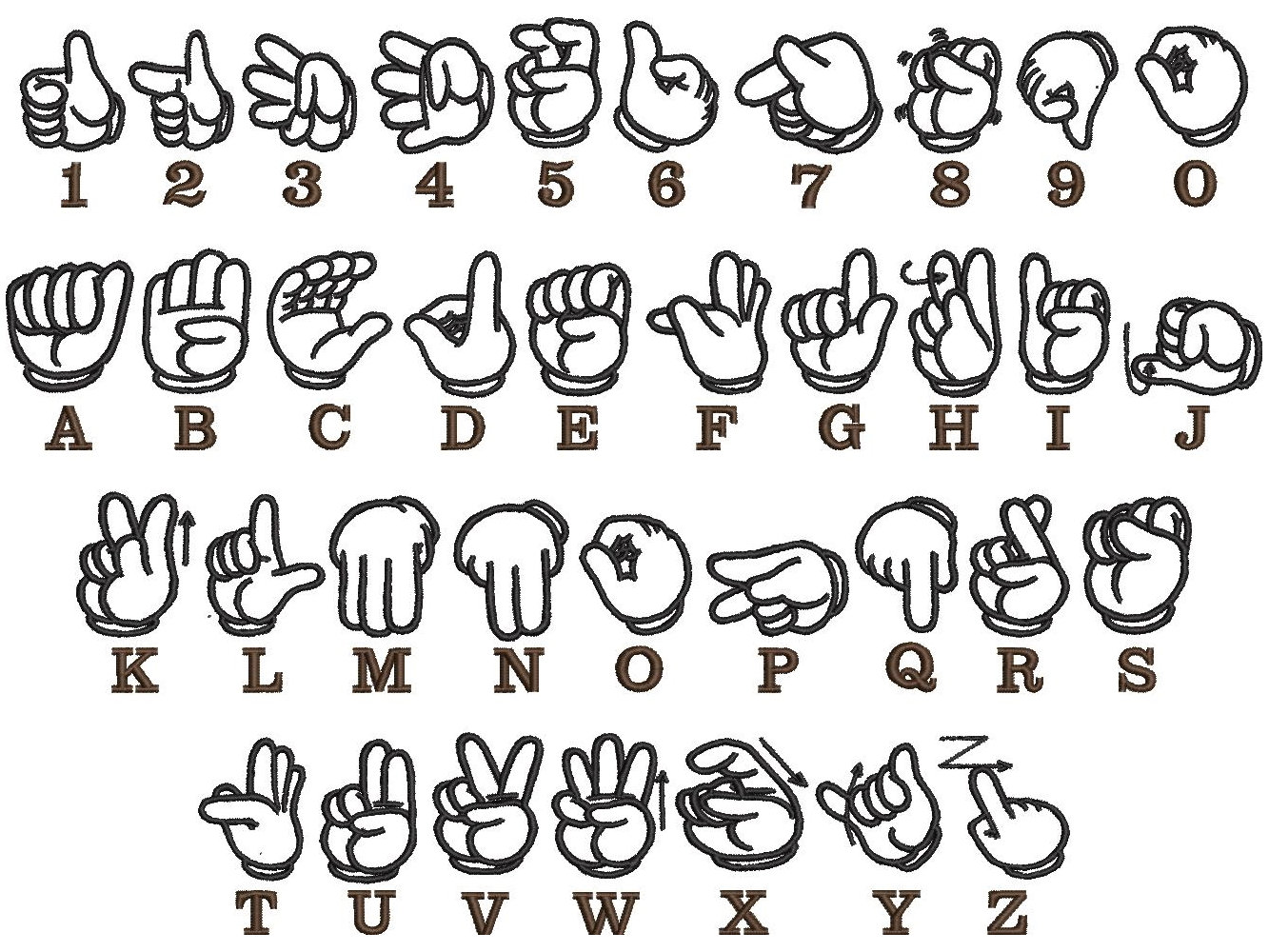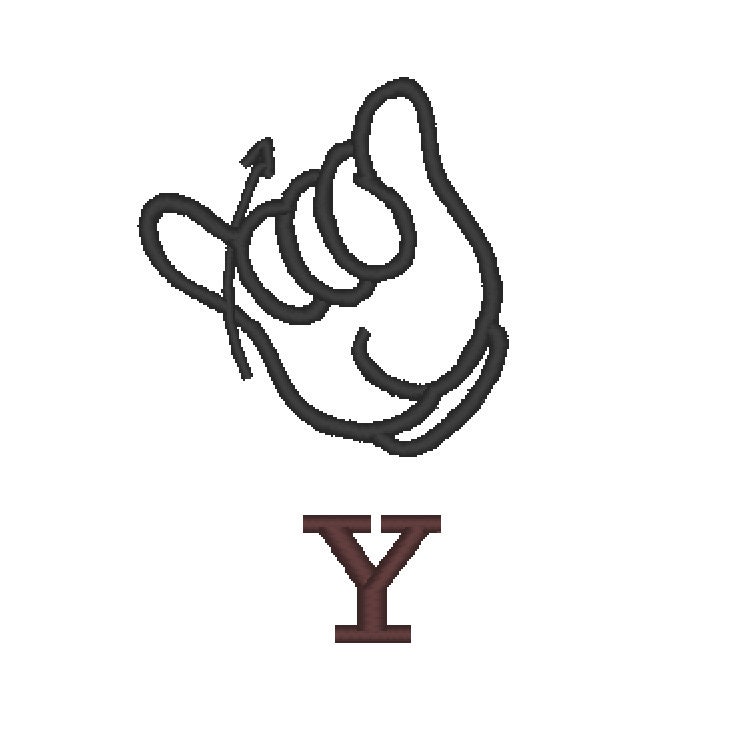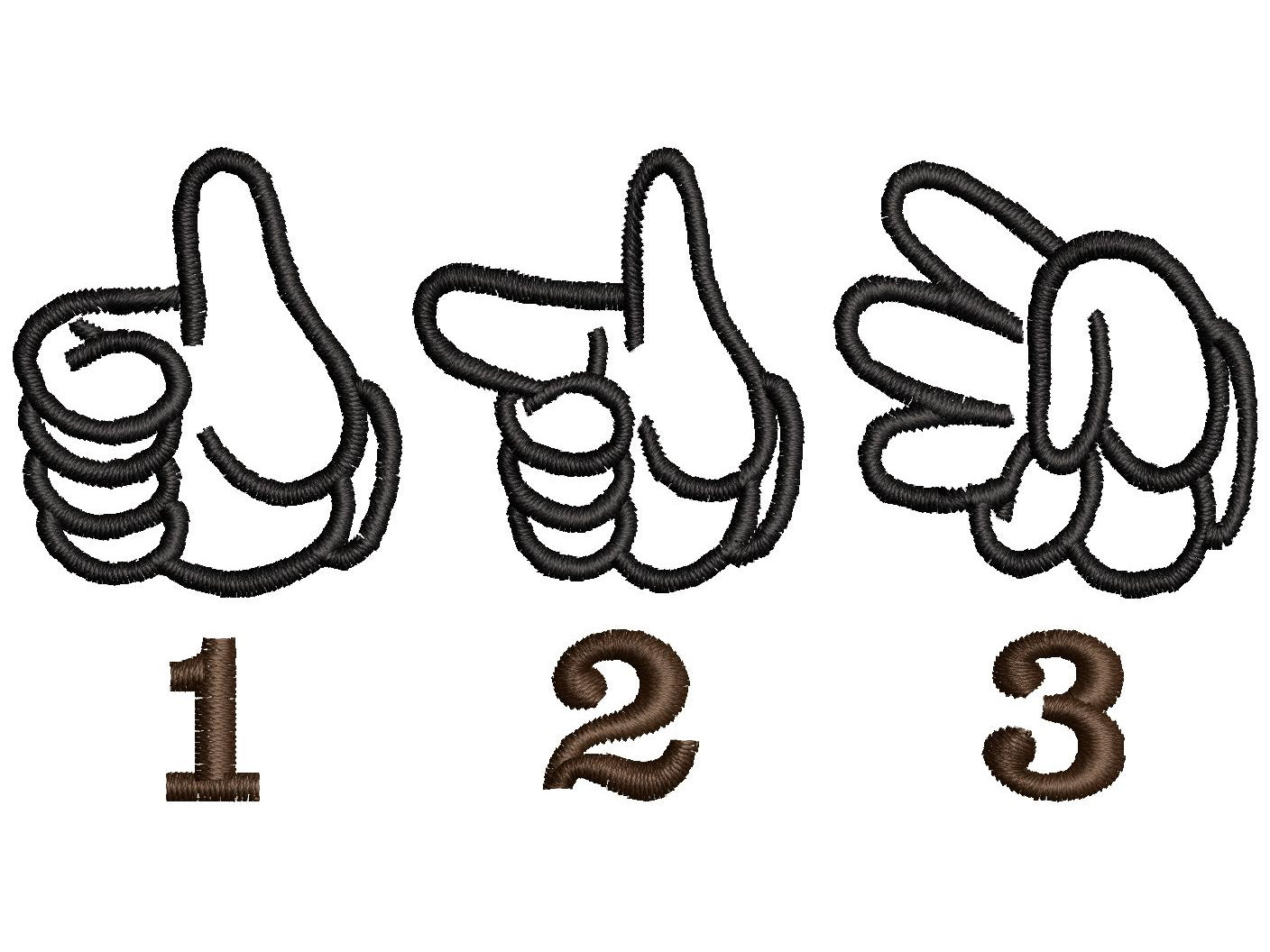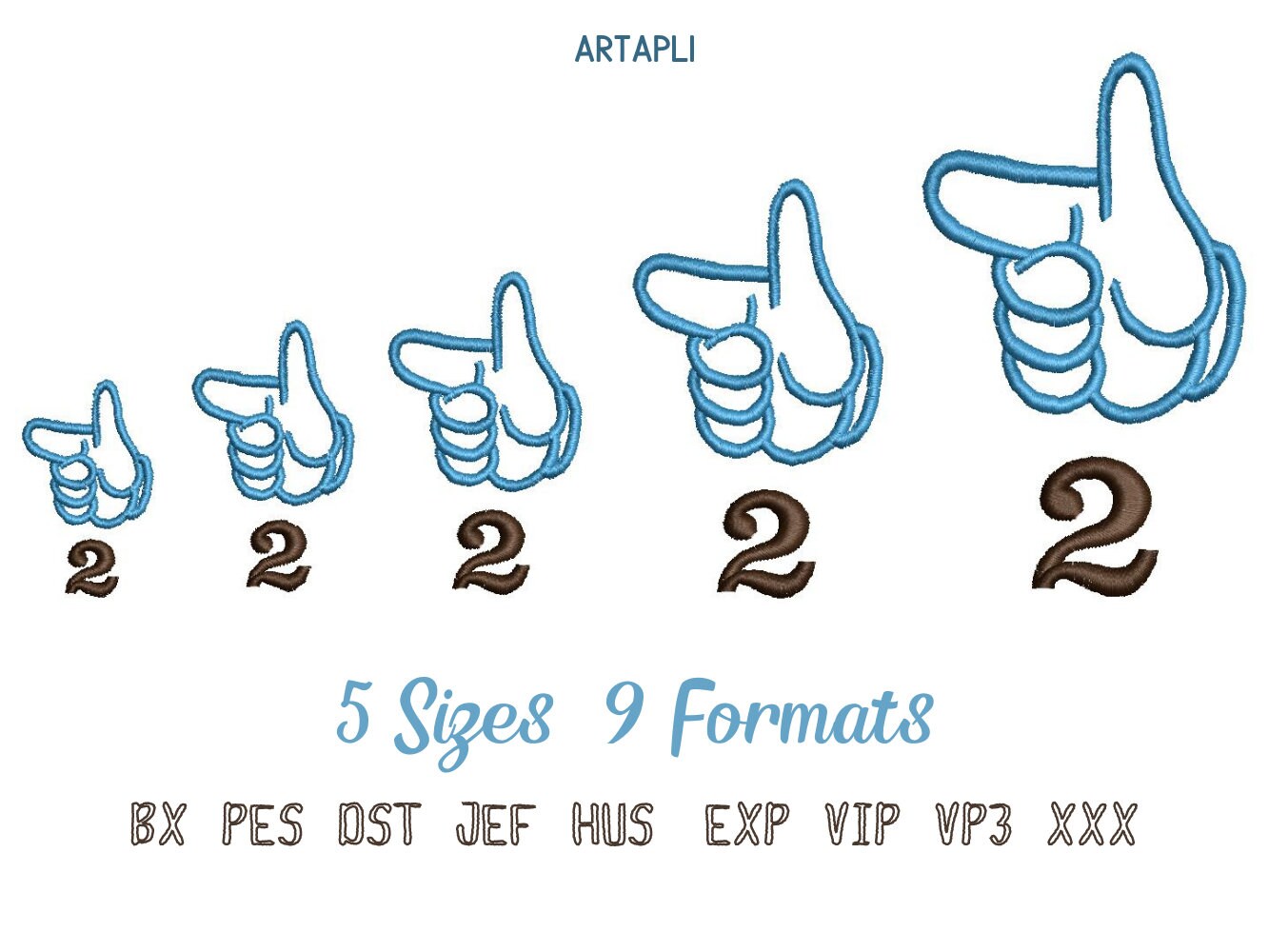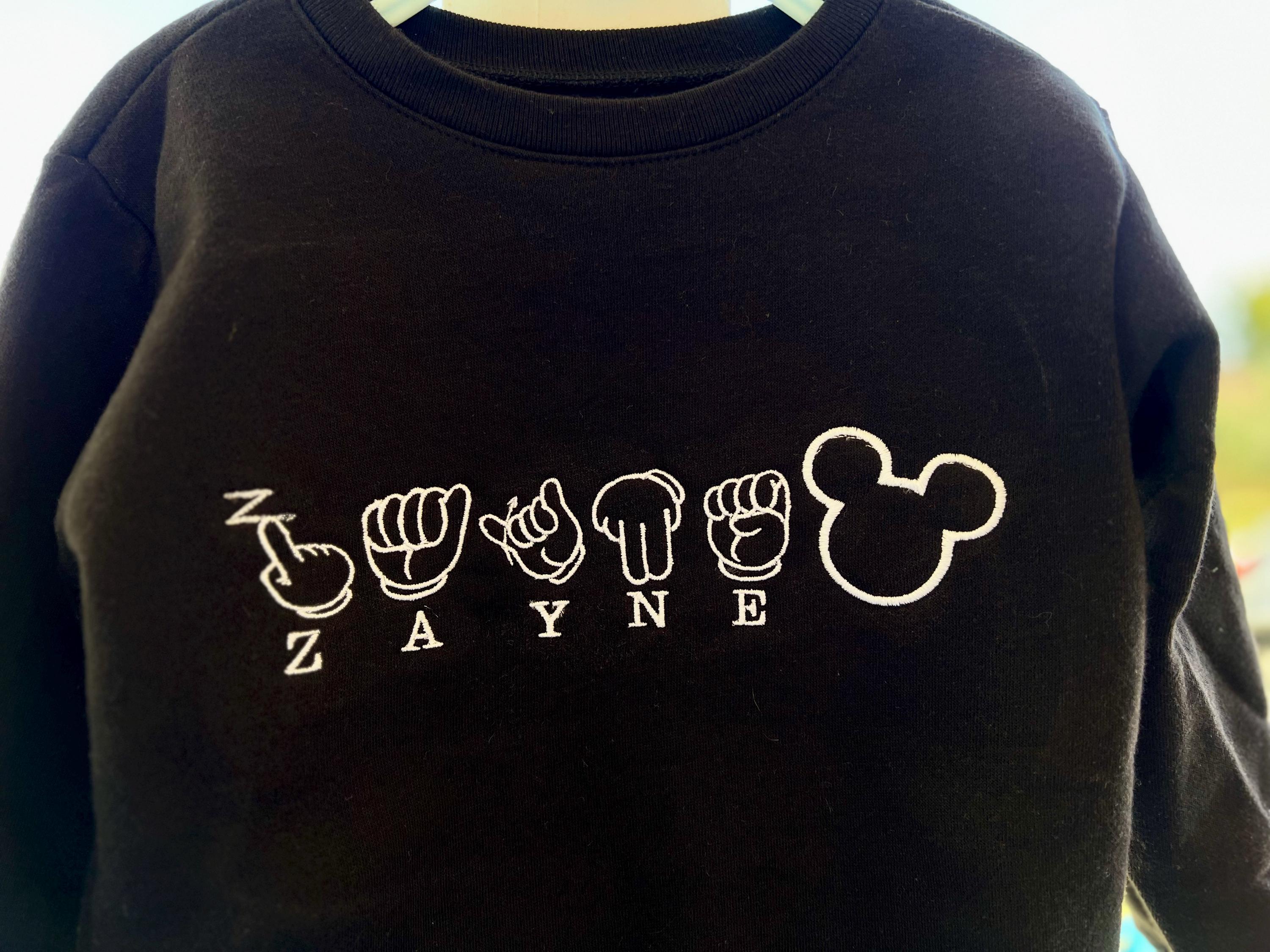
Sign Language FONT hand sign alphabet letters and numbers satin stitch outline machine embroidery designs in assorted mini sizes, BX included
Whole alphabet uppercase letters A-Z, and numbers 0-9.
This is a quick stitch design, the background fabric looks through. Stunning effect!